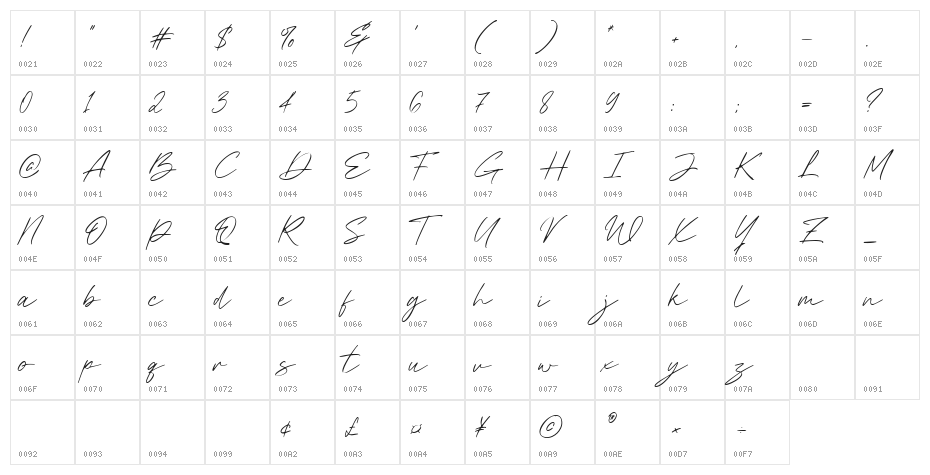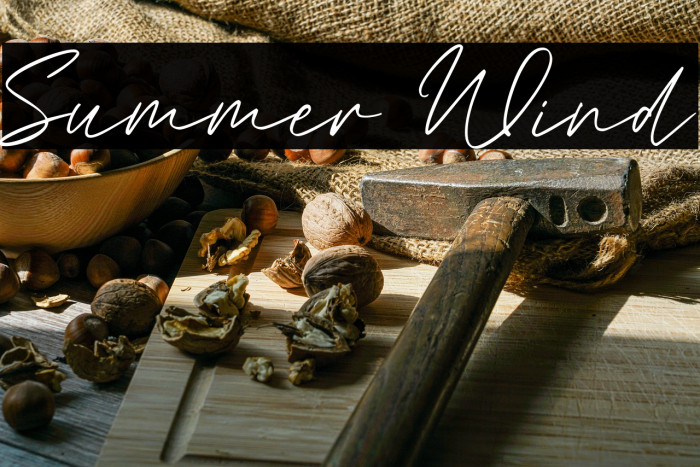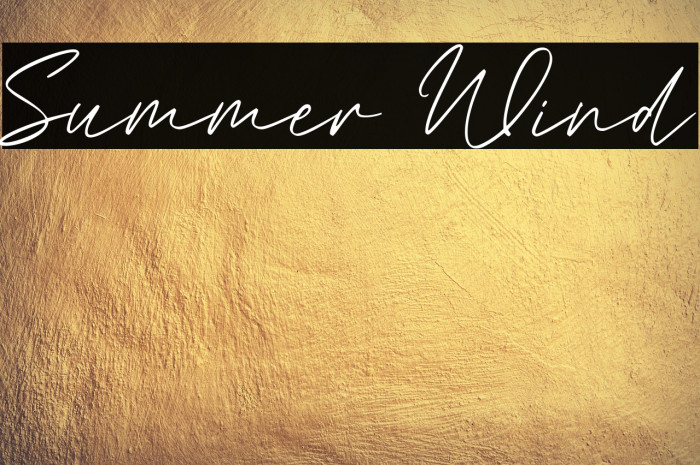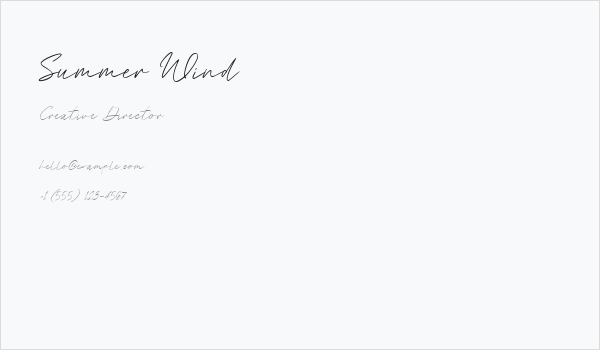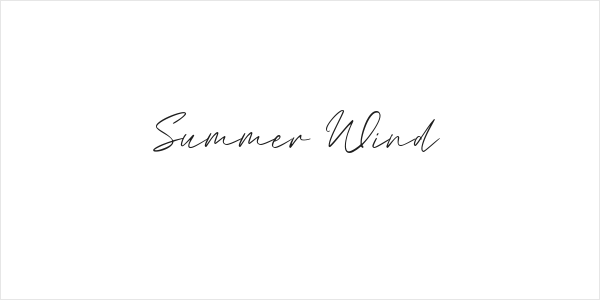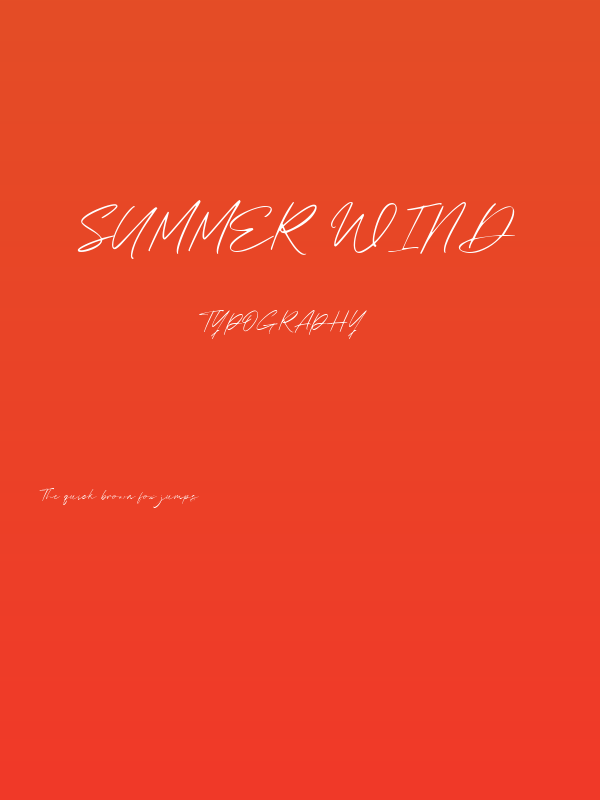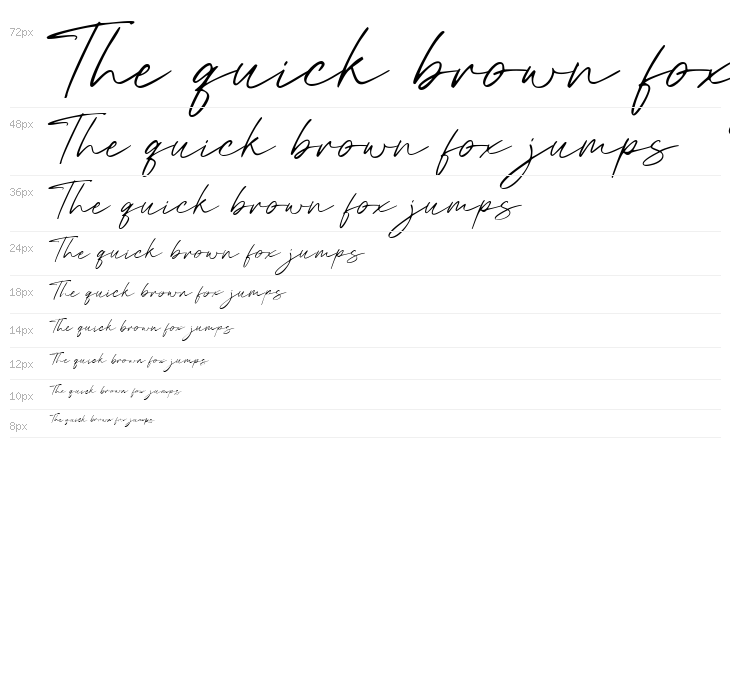
Summer Wind Font
Summer Wind Description
This font exudes a casual, handwritten style with a fluid and elegant script. The characters are connected, creating a seamless flow that mimics natural handwriting. The strokes are smooth and slightly varied in thickness, adding a touch of sophistication and personality. The uppercase letters are slightly more formal, while the lowercase letters maintain a relaxed and approachable feel. Numbers and special characters are designed to match the overall aesthetic, ensuring consistency throughout. This font is perfect for projects that require a personal touch or a sense of elegance.
| Overall Style | Elegant, Handwritten |
| Use Case | Logos, Invitations, Personal Branding |
| Proposed Projects | Ideal for wedding invitations, personal branding, greeting cards, and elegant stationery. |